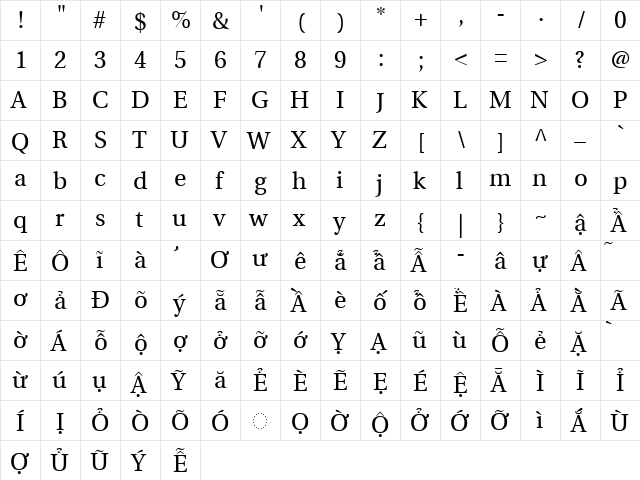
Design Context for Vtopia-Plain.fog Typeface
Vtopia-Plain.fog takes a measured approach to typography — its balanced proportions and neutral character make it a reliable workhorse for both digital and print work.
Pro Tip: Pair Vtopia-Plain.fog with a font of contrasting weight or personality to build a more expressive typographic hierarchy.